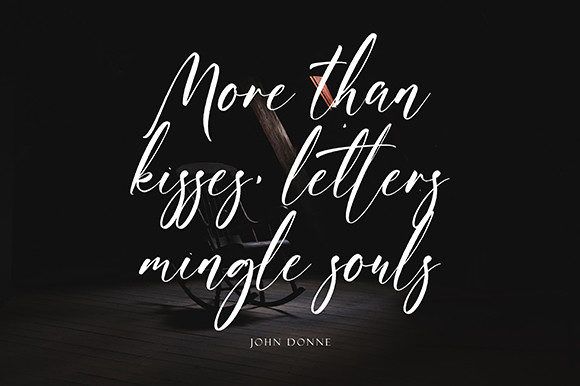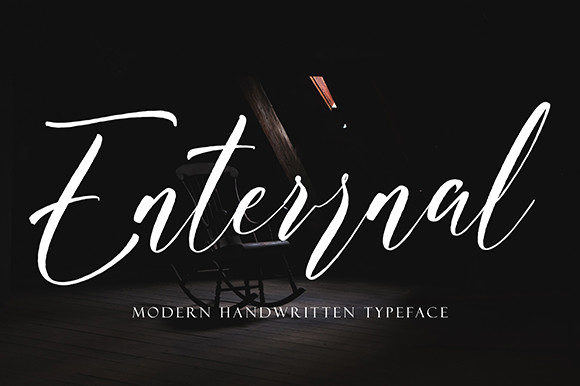
Introducing Enterrnal Font: Elevate Your Designs with Elegance and Sophistication
Are you a designer or crafter looking for a font that exudes elegance and sophistication? Look no further than Enterrnal Font, a stylish and incredibly elegant script font that is sure to take your designs to the next level. With its beautiful, flowing lines and refined aesthetic, Enterrnal is the perfect choice for a wide range of design projects, from wedding invitations and thank you cards to quotes, greeting cards, logos, and business cards.
The Perfect Font for Wedding Invitations and Stationery
Wedding invitations and stationery are a great way to showcase the beauty of Enterrnal Font. The font’s elegant and refined aesthetic makes it perfect for formal wedding invitations, save-the-date cards, and other wedding stationery. The flowing lines and cursive script of Enterrnal add a touch of romance and sophistication to any design, making it sure to impress your clients and their guests.
But Enterrnal is not just limited to wedding invitations. The font is also ideal for other types of stationery, such as thank you cards, greeting cards, and business cards. Whether you’re designing for a special occasion or just want to add a personal touch to your correspondence, Enterrnal is the perfect choice.
Add a Handwritten Touch to Your Designs
One of the standout features of Enterrnal Font is its ability to add a handwritten touch to your designs. The font’s script style and flowing lines give it a personal, hand-written feel that is sure to make your designs stand out. Whether you’re designing for a client or working on a personal project, Enterrnal is the perfect way to add a touch of elegance and sophistication.
Enterrnal Font is not just limited to stationery and invitations. The font is also perfect for logos and branding projects. The elegant and refined aesthetic of Enterrnal makes it a great choice for businesses that want to convey a sense of sophistication and luxury. Whether you’re designing a logo for a high-end fashion brand or a upscale restaurant, Enterrnal is the perfect choice.
Key Features of Enterrnal Font
• Elegant and refined aesthetic: Enterrnal Font features a beautiful, flowing script style that is sure to add a touch of elegance and sophistication to your designs.
• Handwritten touch: The font’s script style and flowing lines give it a personal, hand-written feel that is sure to make your designs stand out.
• Perfect for wedding invitations and stationery: Enterrnal is ideal for formal wedding invitations, save-the-date cards, and other wedding stationery.
• Ideal for logos and branding: The elegant and refined aesthetic of Enterrnal makes it a great choice for businesses that want to convey a sense of sophistication and luxury.
Font Name Enterrnal Font
Author Pineungtype & Missinklab
In conclusion, Enterrnal Font is a stylish and incredibly elegant script font that is sure to elevate your designs to the next level. With its beautiful, flowing lines and refined aesthetic, Enterrnal is the perfect choice for a wide range of design projects, from wedding invitations and stationery to logos and branding. Whether you’re a designer or crafter, Enterrnal is the perfect way to add a touch of elegance and sophistication to your work.